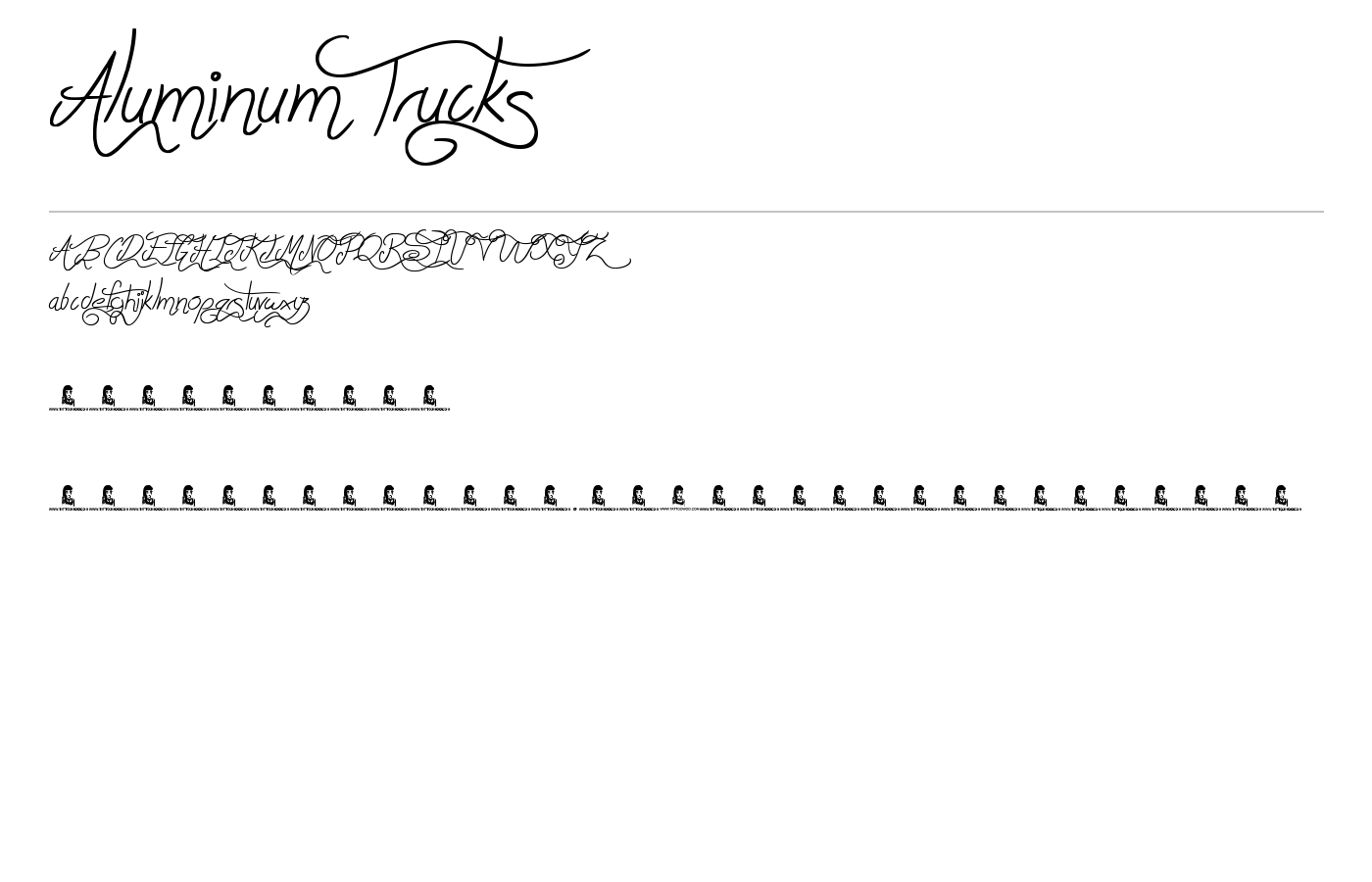
Aluminum Trucks is an elegant, highly decorative script font characterized by its delicate, flowing strokes and intricate swashes that convey a sophisticated and artistic flair. With its thin, calligraphic lines and whimsical flourishes, it is ideal for projects that seek a personal, graceful touch such as invitations, branding for creative businesses, or stylish logos, where its unique personality can truly stand out. This font works best in large sizes due to its detailed nature, adding a sense of refined charm and creativity to any design.
Aluminum Trucks Font